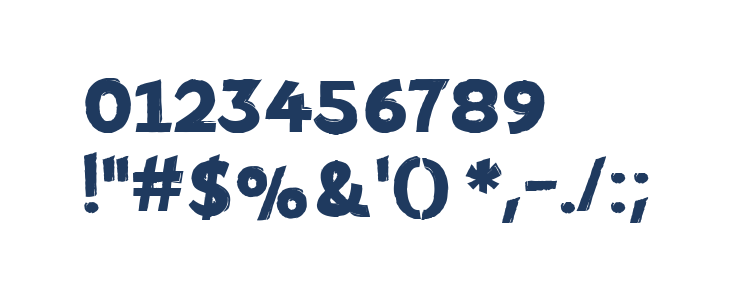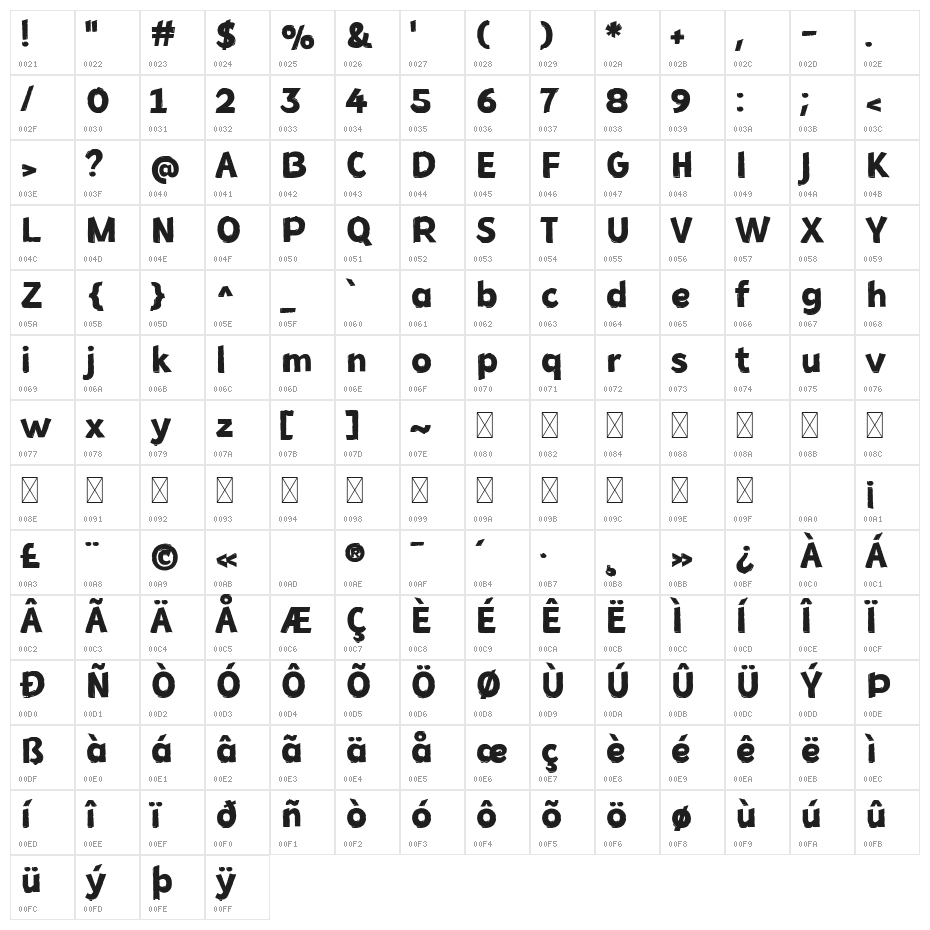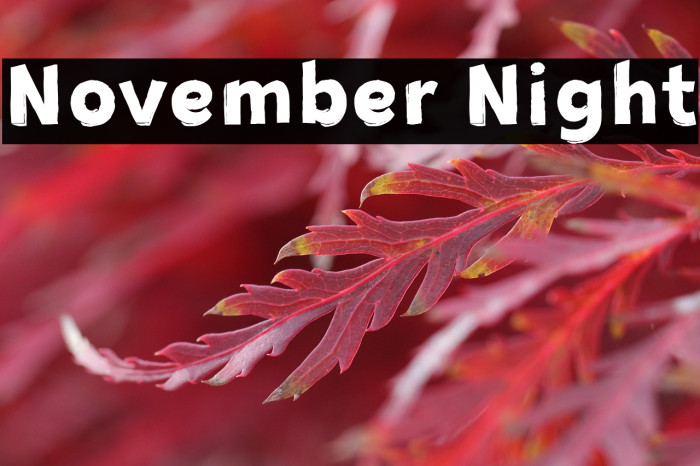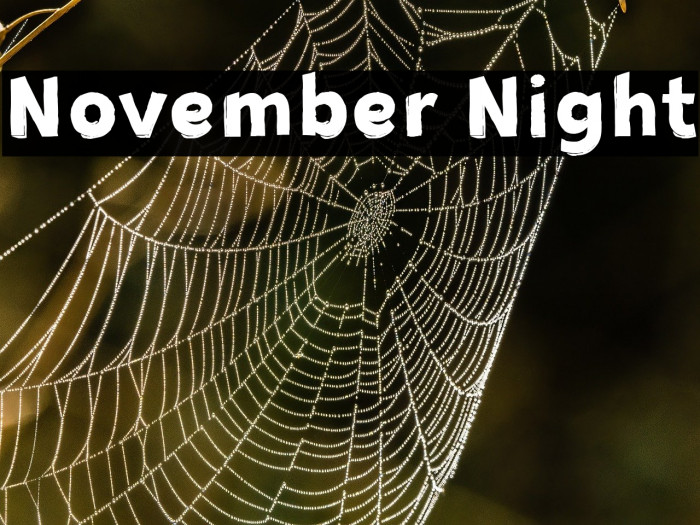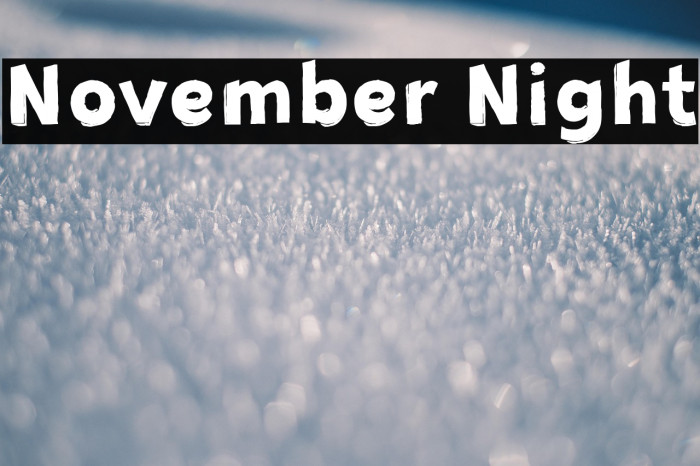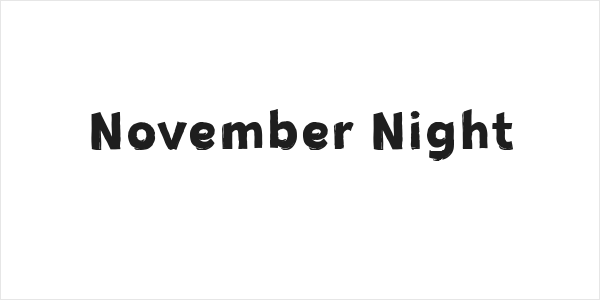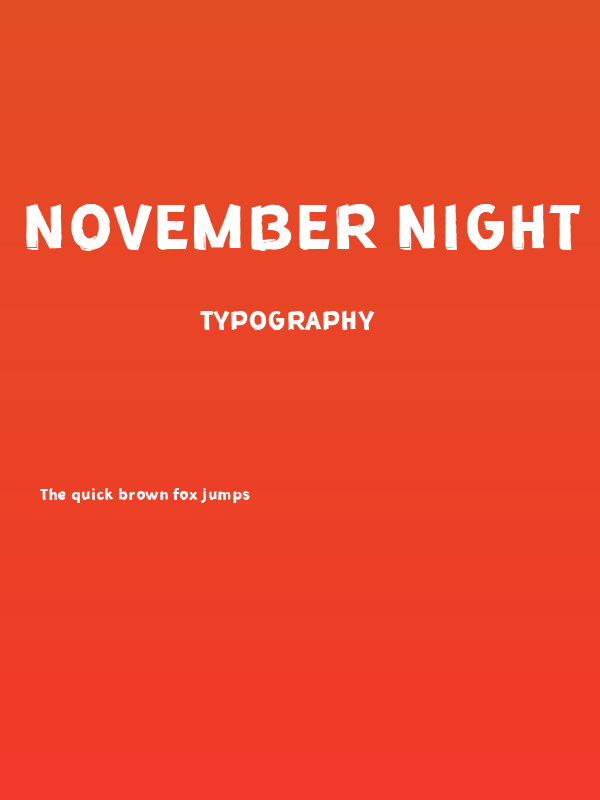
November Night Font
November Night Description
This font features a bold and expressive style with a hand-painted appearance. The characters have a slightly irregular and textured look, giving them a dynamic and artistic feel. The uppercase and lowercase letters maintain a consistent weight, while the numbers and special characters complement the overall design. The strokes are thick and uneven, adding to the font's rustic charm. This style is perfect for projects that require a touch of creativity and individuality, making it suitable for artistic and informal applications.
| Overall Style | Artistic, Rustic |
| Proposed Projects | Ideal for posters, artistic branding, creative invitations, and unique logo designs. |